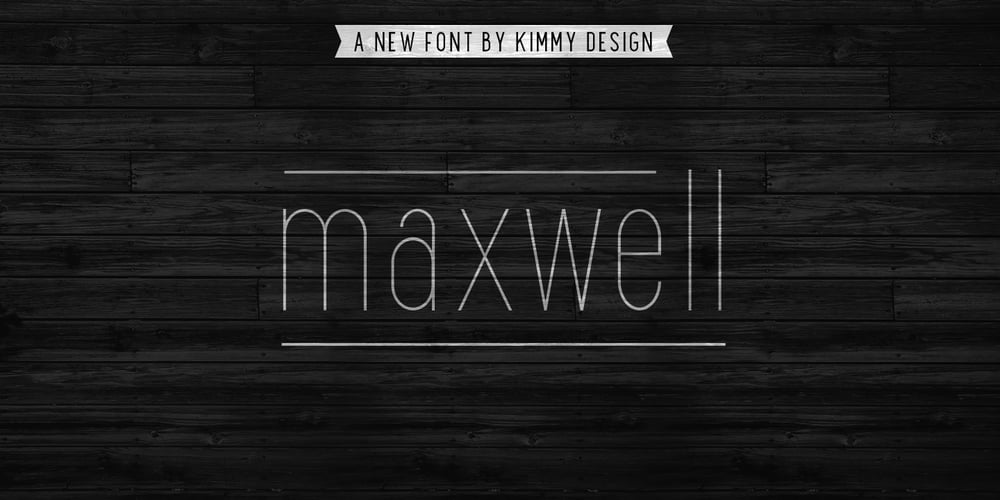
Maxwell Sans Font Family was designed by Kimmy Kirkwood and published by Kimmy Design. Maxwell Sans contains 20 styles and family package options. Maxwell is a clean condensed san serif typeface inspired by similar retro fonts from the 1950’s. It comes in regular and small caps versions, includes stylistic alternatives and via the glyph panel you can access scientific inferiors, fractions, oldstyle numerals, Cyrillic, Greek, Latin and other Western and Central European languages. It can be used as a headline font or paragraph text.